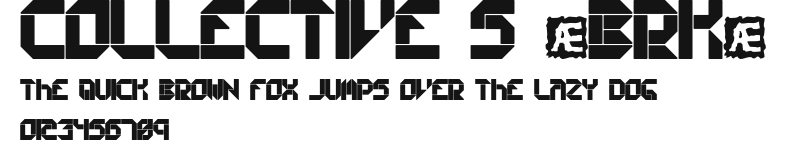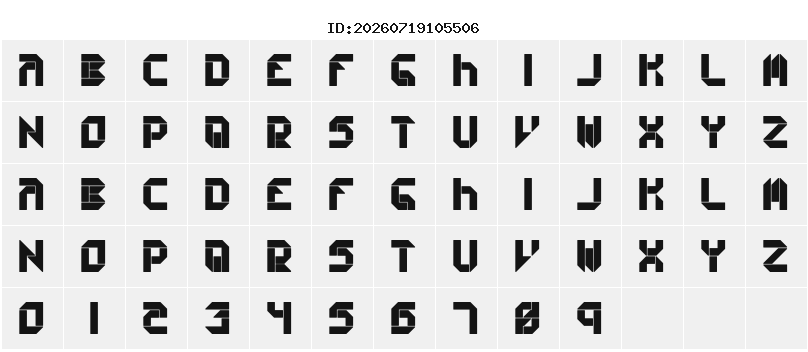
Collective S (BRK) Preview
• Font Name: Collective S (BRK)
• Full Font Name: Collective S (BRK)
• PostScript Name: CollectiveS(BRK)
• Character Count: 70
About Collective S (BRK).ttf
Collective S (BRK).ttf is a modern, elegant sans-serif font designed for ultimate readability and visual harmony. Perfect for branding, headlines, web design, and print materials.